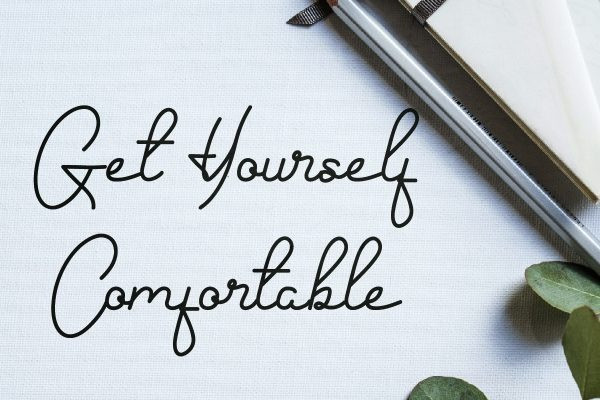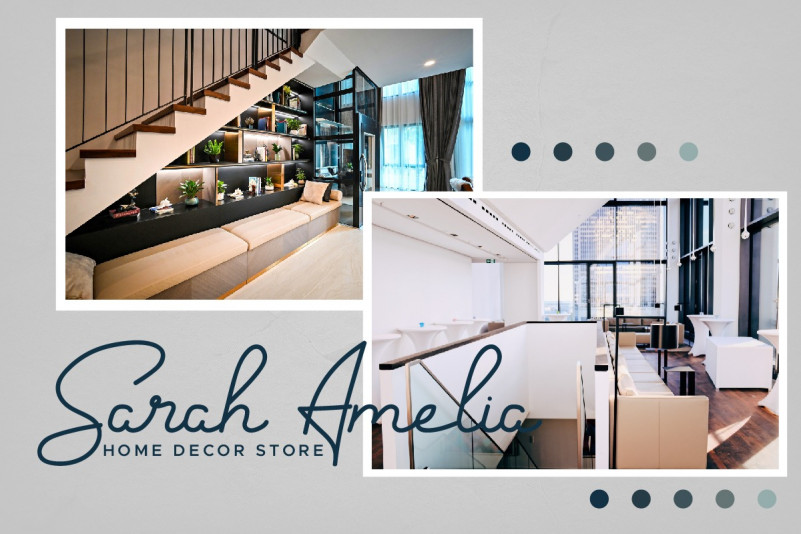
Barcelona Handwritin Font
Barcelona is a fun, cursive and relaxed handwritten font. It has a modern touch and a joyful feel, and as a result, it will embelish your designs in no time.